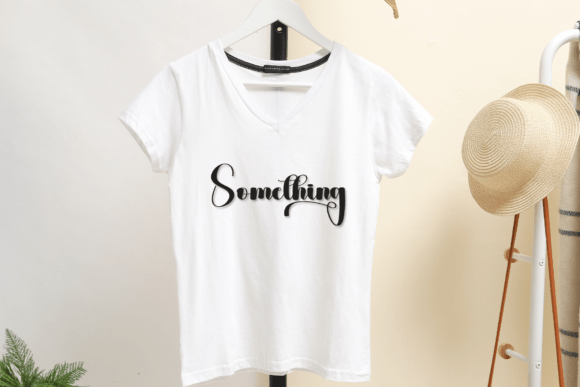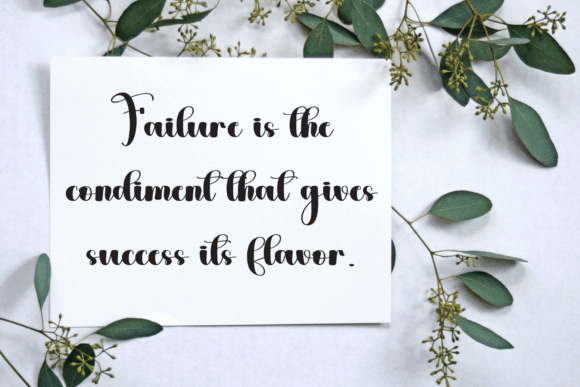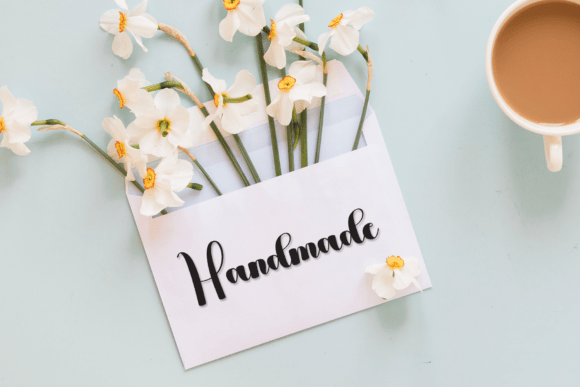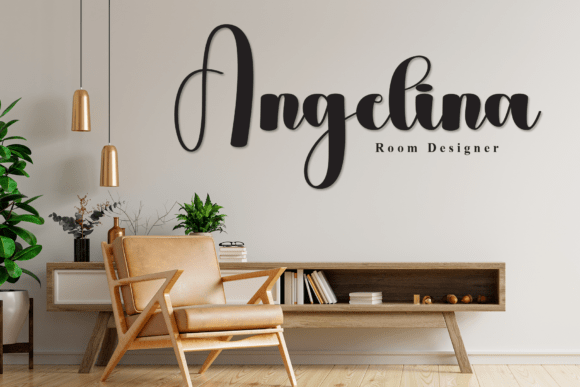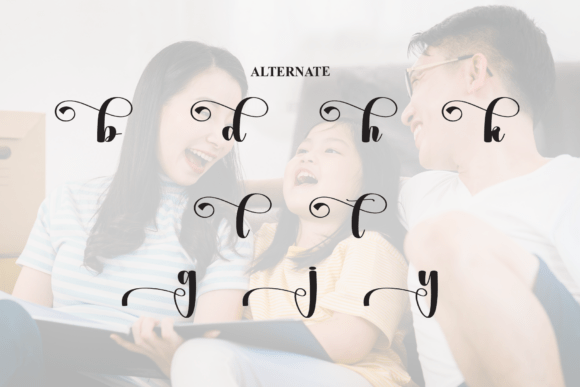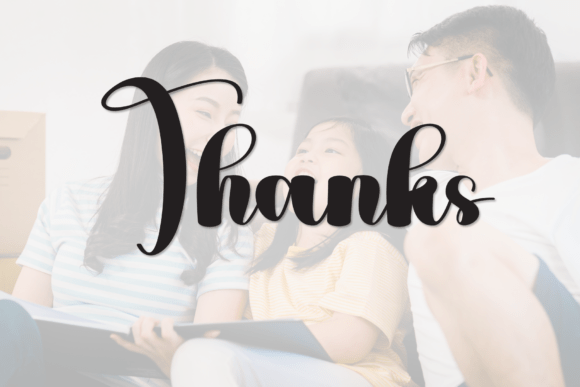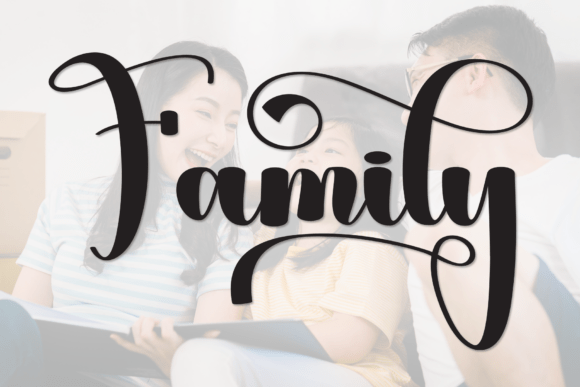
Introducing Family Font: A Soft Modern Script for Heartfelt Designs
Are you looking for a font that can add a personal touch to your designs? Look no further than the Family font, a beautiful and fluid “Soft Modern Script” typeface that’s perfect for celebrating the most important connections in life. With its graceful, sweeping loops and thick, rounded strokes, this font exudes comfort and approachability, making it an essential tool for projects that need to feel personal and heartfelt.
What is Family Font?
The Family font is a stunning typeface that captures a perfect balance between a hand-lettered “signature” feel and a clean, modern aesthetic. Its unique blend of elegance and approachability makes it perfect for a wide range of design projects, from lifestyle branding to photography watermarks and sentimental gift products.
Characteristics of Family Font
The Family font is characterized by its:
- Graceful, sweeping loops: The font’s flowing loops give it a sense of movement and fluidity, making it perfect for creating elegant and sophisticated designs.
- Thick, rounded strokes: The font’s rounded strokes add a touch of warmth and approachability, making it perfect for projects that need to feel personal and heartfelt.
- High-contrast flourishes: The font’s decorative flourishes allow you to add a touch of elegance and sophistication to your designs, while maintaining excellent legibility.
Use Cases for Family Font
The Family font is incredibly versatile and can be used for a wide range of design projects, including:
- Lifestyle branding: Use the Family font to create a personal and heartfelt brand identity that resonates with your audience.
- Photography watermarks: Add a touch of elegance and sophistication to your photography watermarks with the Family font.
- Sentimental gift products: Use the Family font to create custom embroidery for baby blankets, personalized wall art, and other sentimental gift products.
- Parenting blog headers: Create elegant and sophisticated headers for your parenting blog with the Family font.
Why Choose Family Font?
So why choose the Family font for your design projects? Here are just a few reasons:
- Unique and elegant design: The Family font’s unique blend of elegance and approachability makes it perfect for creating stunning and sophisticated designs.
- High legibility: The font’s high-contrast flourishes and clear lettering make it easy to read, even at small sizes.
- Pairing versatility: The Family font pairs magnificently with simple, clean fonts, making it easy to create beautiful and harmonious design combinations.
Pairing Family Font with Other Fonts
The Family font pairs well with a variety of fonts, but it looks particularly stunning when paired with simple, clean fonts. Some popular pairing options include:
- Open Sans: This clean and modern sans-serif font pairs perfectly with the Family font, creating a beautiful and harmonious design combination.
- Lato: This elegant and sophisticated sans-serif font pairs well with the Family font, creating a stunning and elegant design.
- Merriweather: This classic and elegant serif font pairs beautifully with the Family font, creating a sophisticated and timeless design.